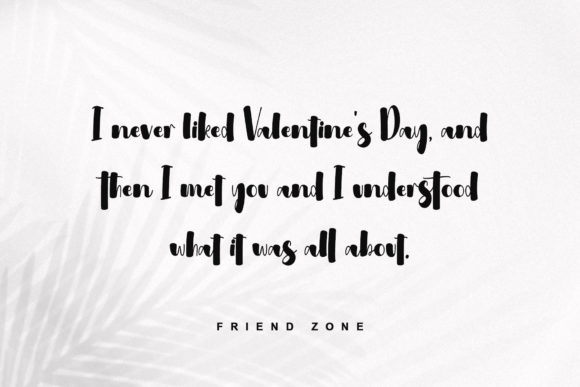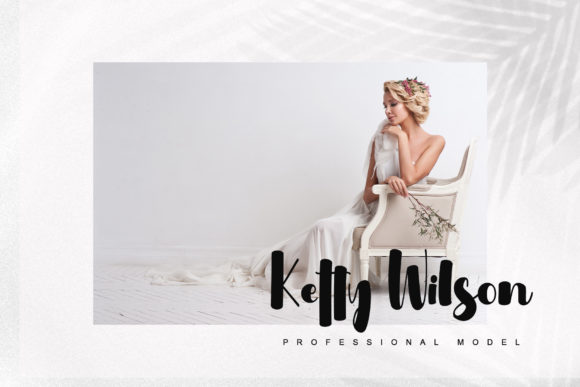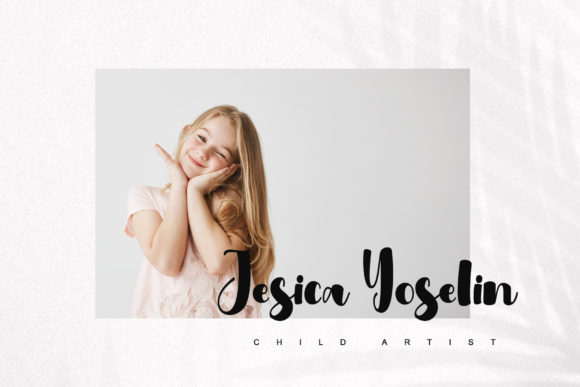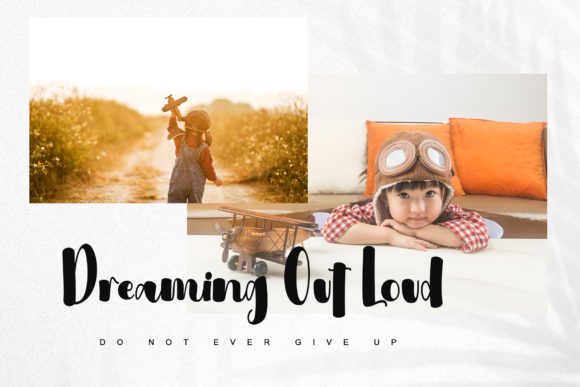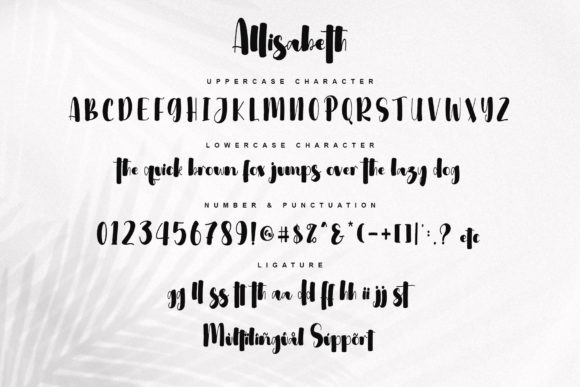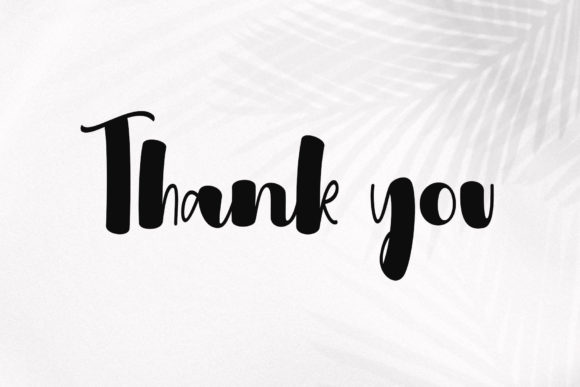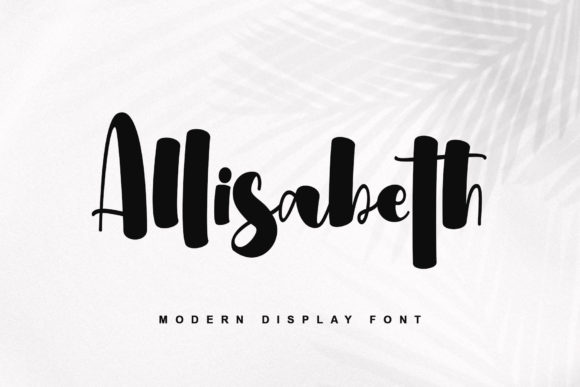
Discover the Charm of Allisabeth Font: A Bold Script Font for Your Creative Projects
Are you on the hunt for a font that adds a touch of personality to your designs? Look no further than Allisabeth, a bold script font that’s as simple as it is unique. With its casual charm and down-to-earth feel, Allisabeth is the perfect choice for designers and crafters looking to add a fun and friendly touch to their projects.
What Makes Allisabeth Font So Special?
Allisabeth is more than just a font – it’s a statement piece. Its bold, script design makes it stand out from the crowd, while its simplicity ensures that it remains readable and versatile. Whether you’re working on a logo, a poster, or a digital project, Allisabeth is the perfect choice for adding a touch of whimsy and personality.
The Benefits of Using Allisabeth Font
So why choose Allisabeth font for your next project? Here are just a few benefits of using this amazing font:
• Readability: Despite its bold design, Allisabeth is incredibly readable, making it perfect for use in a variety of contexts, from digital screens to print materials.
• Versatility: Allisabeth is a versatile font that can be used in a wide range of projects, from logos and posters to social media graphics and more.
• Uniqueness: With its simple yet unique design, Allisabeth is sure to make your project stand out from the crowd.
• Casual Charm: Allisabeth has a down-to-earth, casual feel that’s perfect for adding a touch of personality to your designs.
How to Use Allisabeth Font in Your Projects
Ready to give Allisabeth font a try? Here are a few ideas for using this amazing font in your projects:
• Logos: Use Allisabeth font to create a bold, eye-catching logo that’s sure to make your brand stand out.
• Posters: Add a touch of personality to your posters with Allisabeth font, perfect for promoting events, products, or services.
• Social Media Graphics: Use Allisabeth font to create engaging social media graphics that are sure to grab the attention of your followers.
• Digital Projects: From website headers to email newsletters, Allisabeth font is the perfect choice for adding a touch of whimsy to your digital projects.
Tips for Getting the Most Out of Allisabeth Font
Here are a few tips for getting the most out of Allisabeth font:
• Experiment with Different Sizes: Allisabeth font looks great in a variety of sizes, so don’t be afraid to experiment to find the perfect fit for your project.
• Pair with Other Fonts: Try pairing Allisabeth font with other fonts to create a unique and eye-catching combination.
• Use in Combination with Images: Allisabeth font looks great in combination with images, so try using it to add a touch of personality to your graphics.
Allisabeth font is a bold, script font that’s perfect for adding a touch of personality to your designs. With its casual charm, readability, and versatility, it’s the perfect choice for designers and crafters looking to create unique and eye-catching projects. So why wait? Give Allisabeth font a try today and see the difference it can make!
Whether you’re a seasoned designer or just starting out, Allisabeth font is a great addition to your font library. Its simplicity, uniqueness, and casual charm make it the perfect choice for a wide range of projects. So go ahead, get creative, and see what amazing things you can create with Allisabeth font!